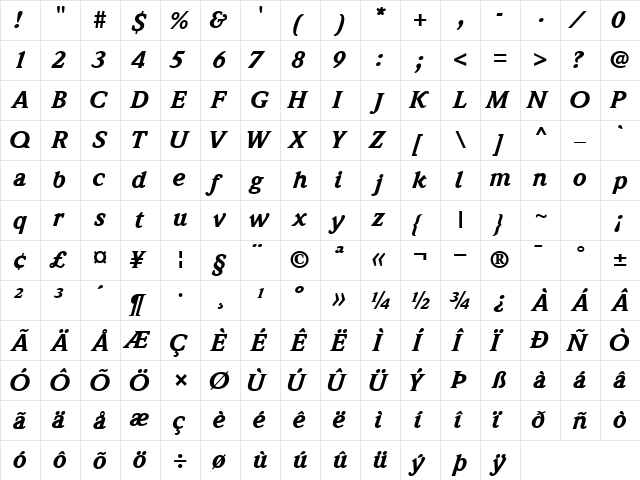
QuintessenceBlackSSK Italic
Design Context for QuintessenceBlackSSK Typeface
QuintessenceBlackSSK takes a measured approach to typography — its balanced proportions and neutral character make it a reliable workhorse for both digital and print work. The slanted form adds forward momentum and visual energy.
Pro Tip: Use QuintessenceBlackSSK for emphasis, pull quotes, and subheadings where its slanted energy can add rhythm to the layout.